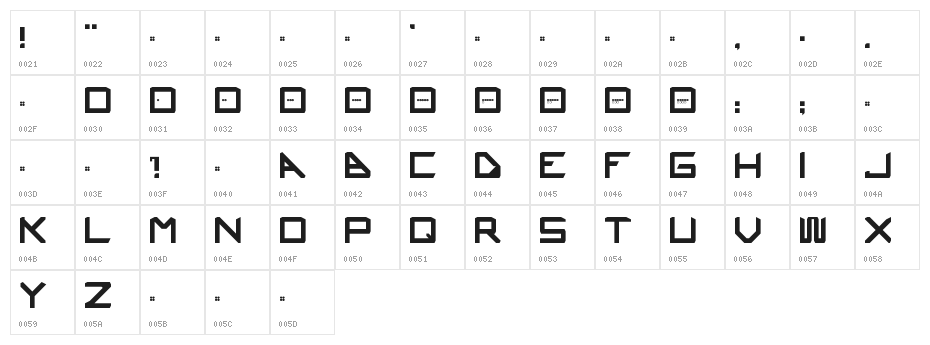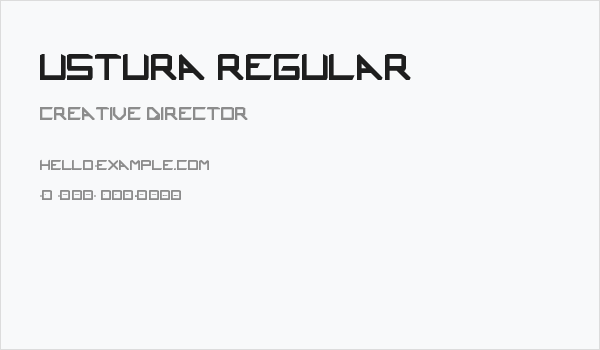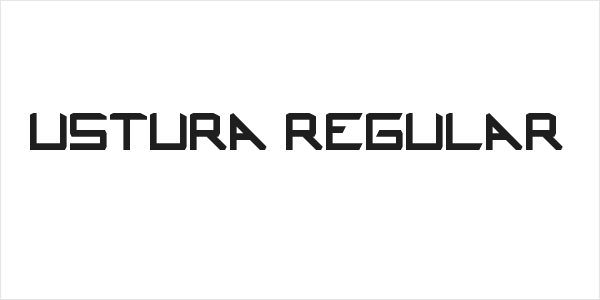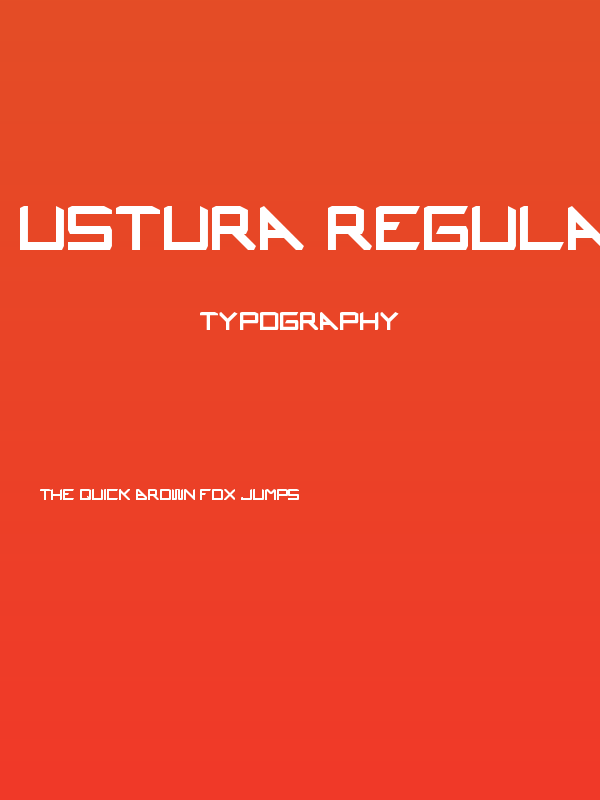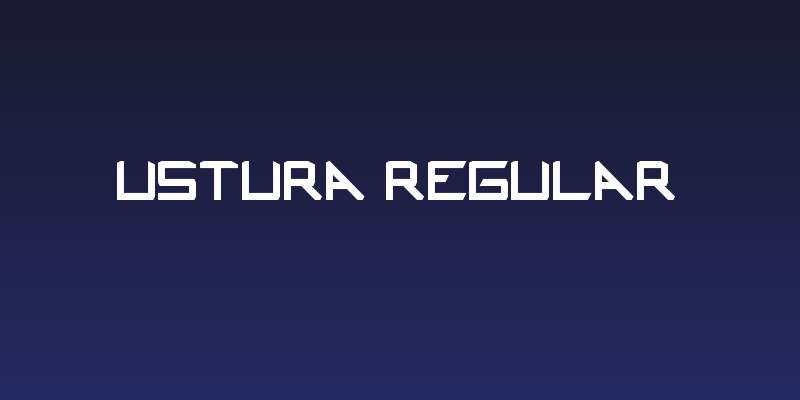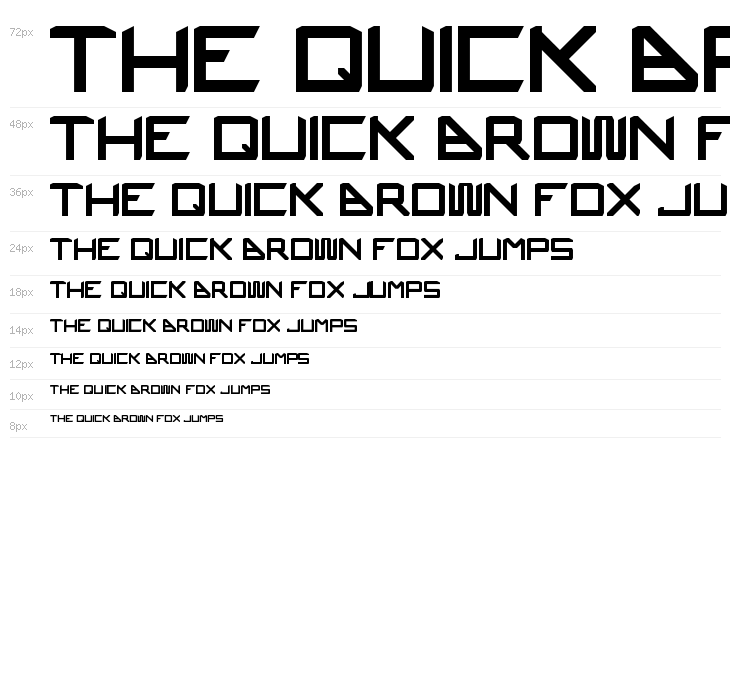
Ustura Regular Font
Ustura Regular Description
This font exhibits a bold and futuristic design, characterized by its angular and geometric letterforms. The uppercase letters are distinct with sharp edges and a blocky appearance, giving it a modern and tech-inspired look. The numbers and special characters maintain this aesthetic, ensuring consistency across all glyphs. The font's unique style makes it stand out, with a strong emphasis on symmetry and structure. Its boldness and distinctiveness make it suitable for projects that require a modern and edgy feel.
| Proposed Projects | Ideal for tech-related branding, video game titles, sci-fi movie posters, and modern digital interfaces. |